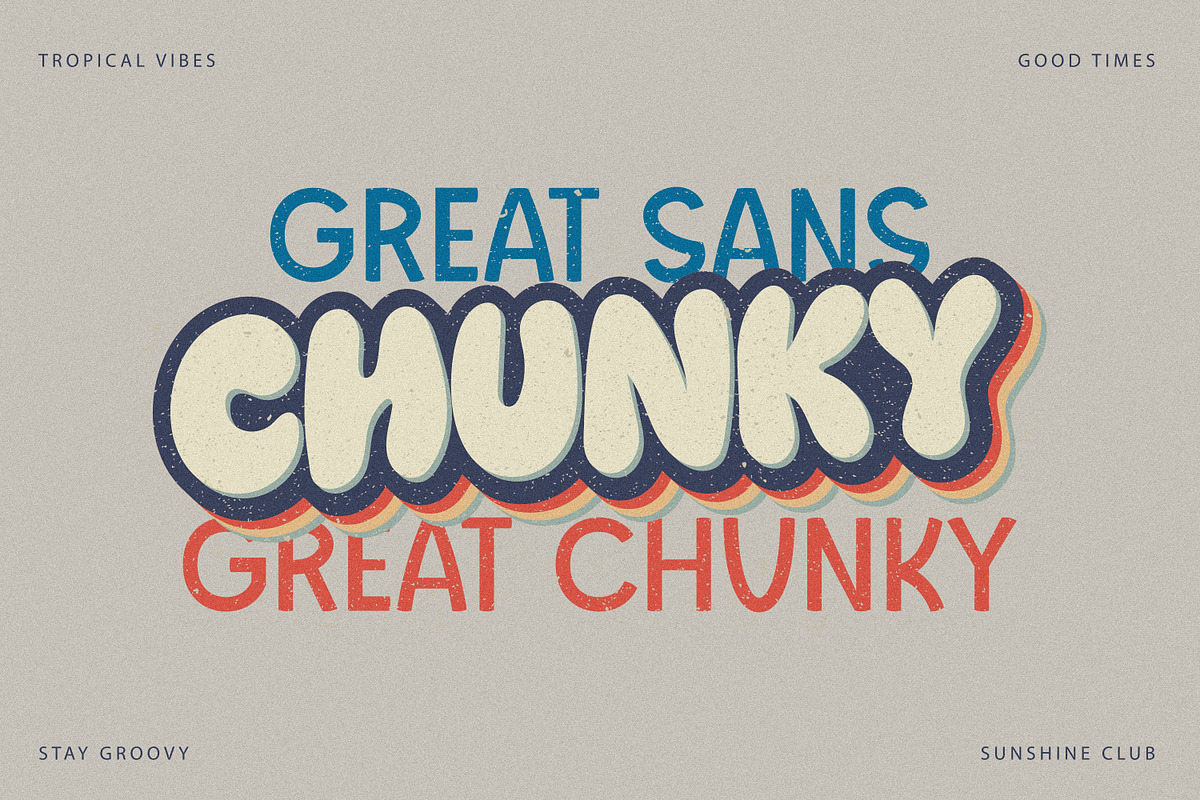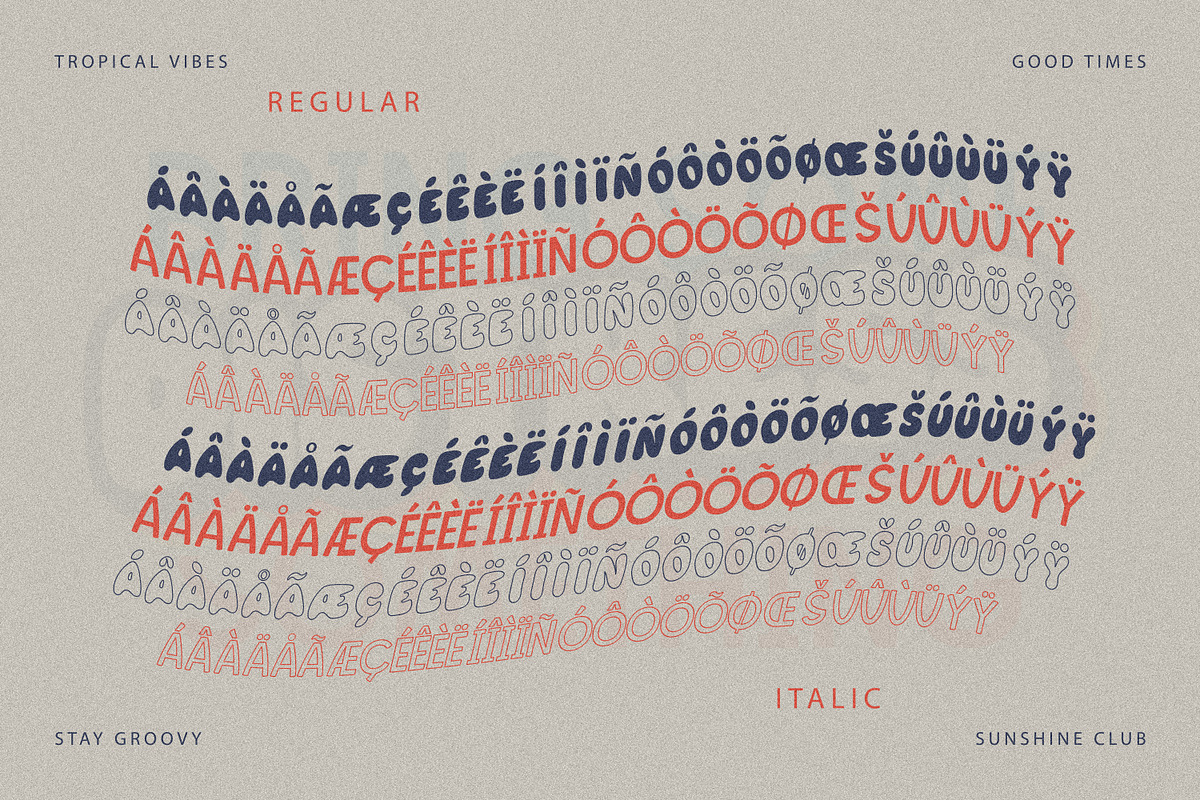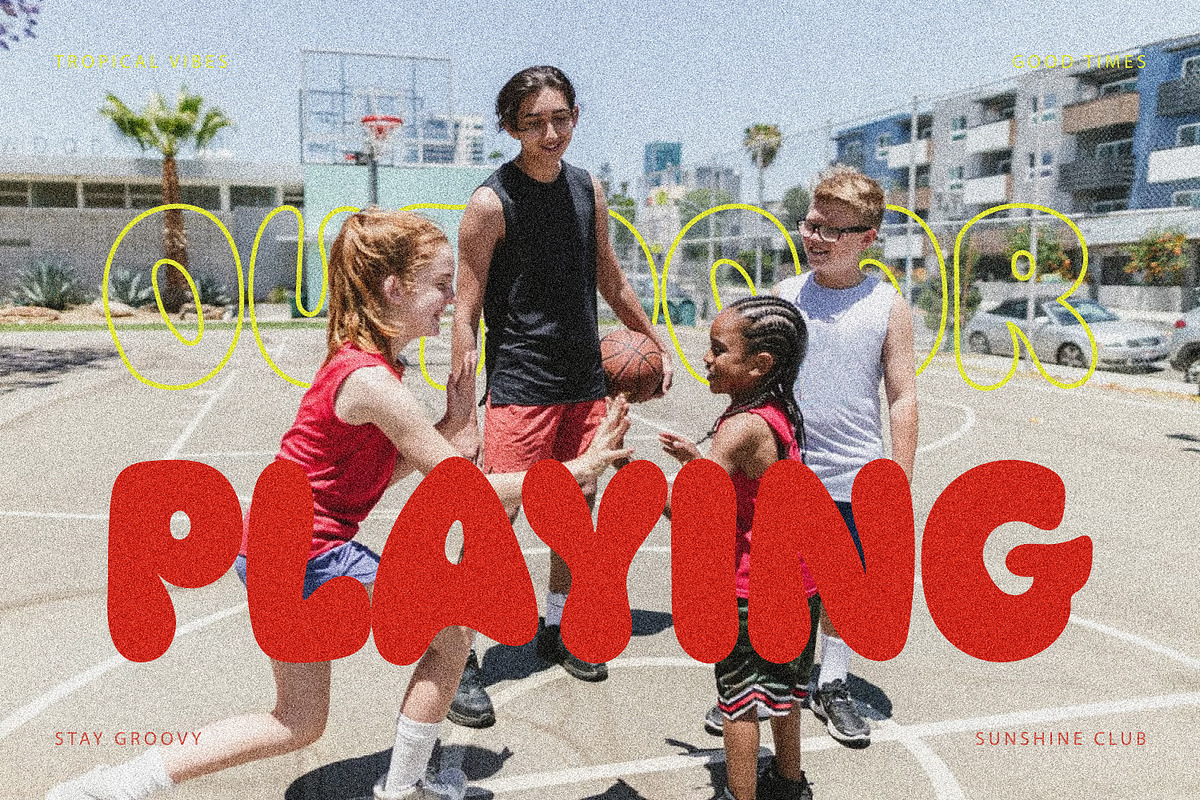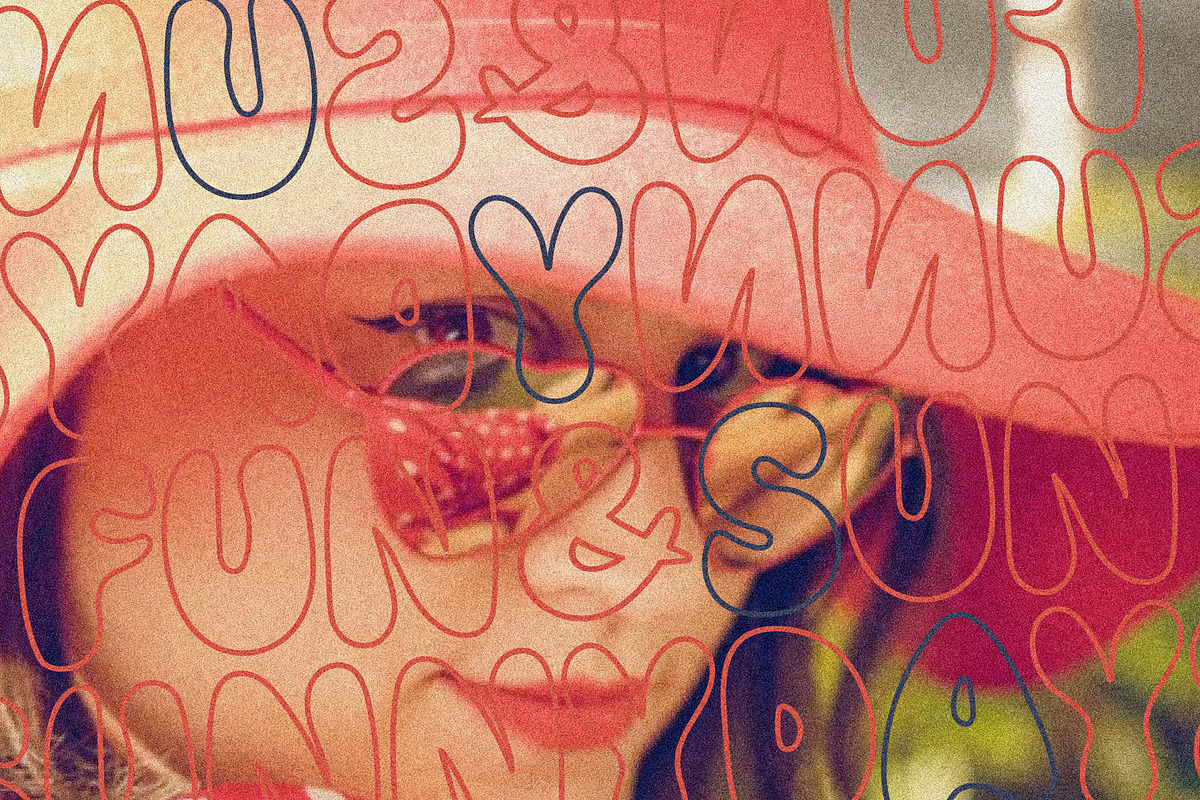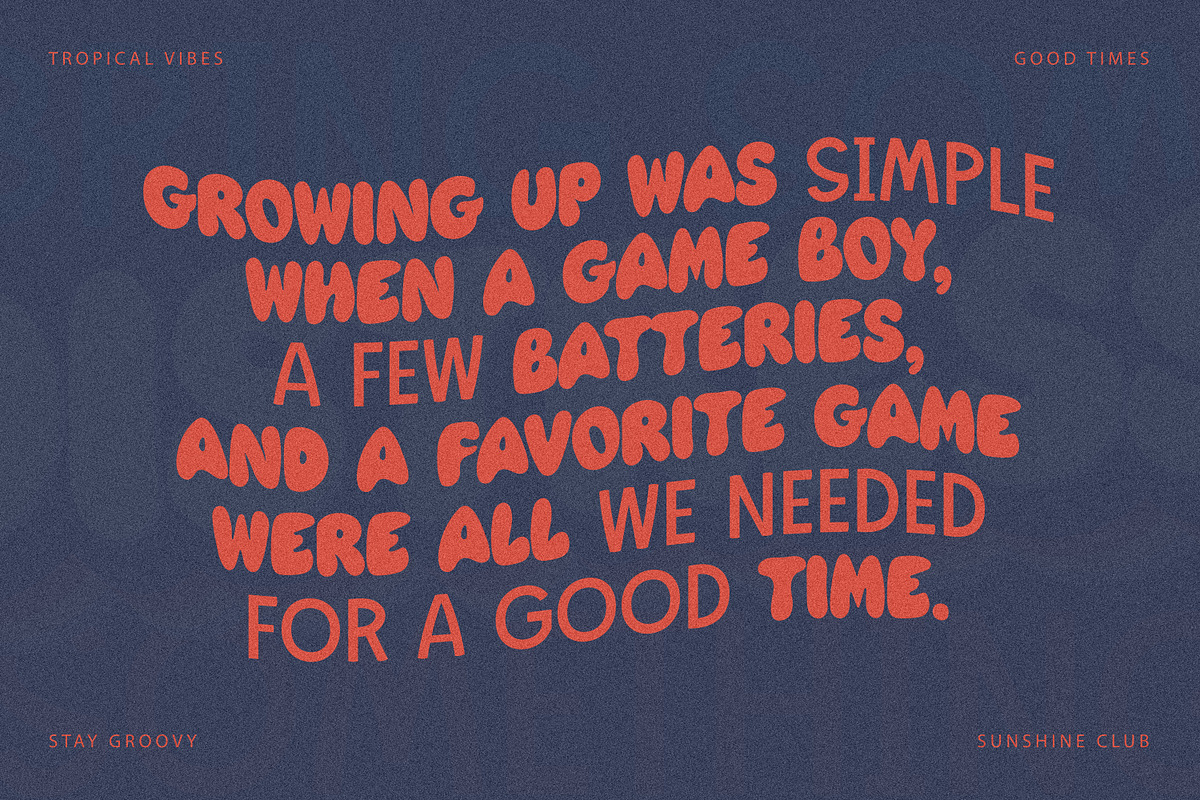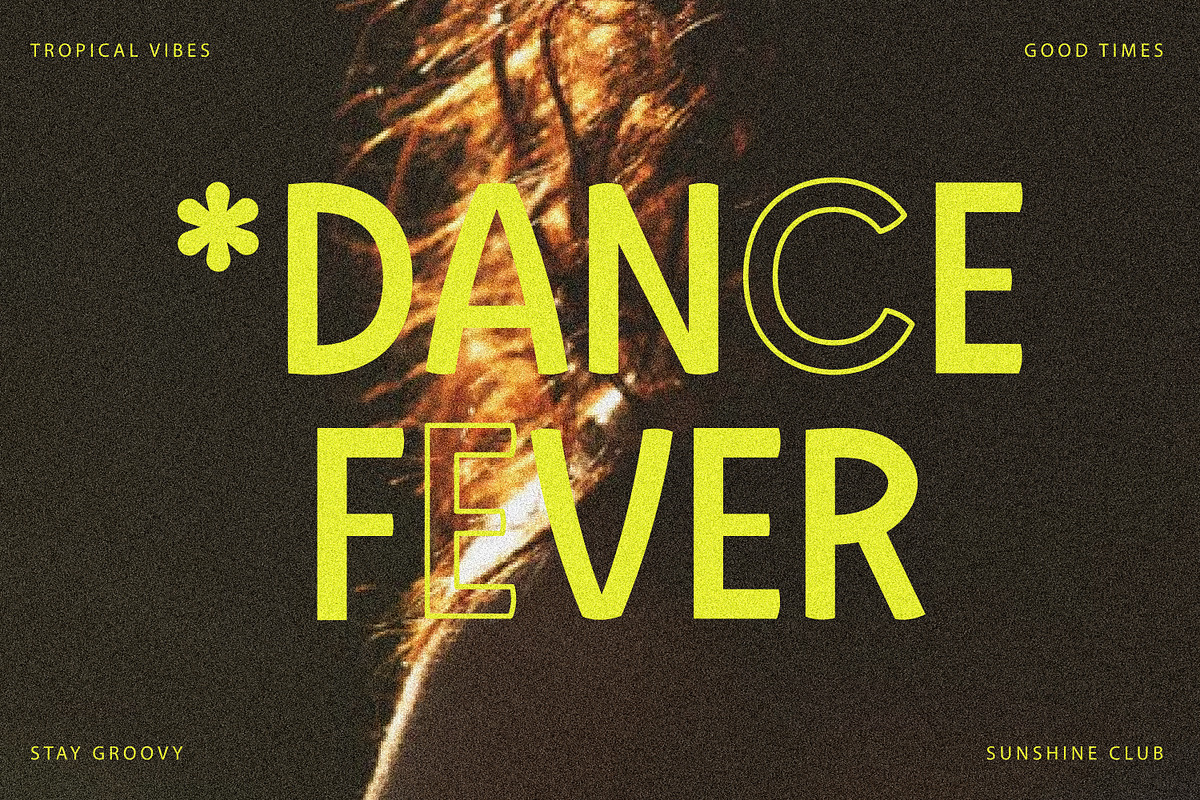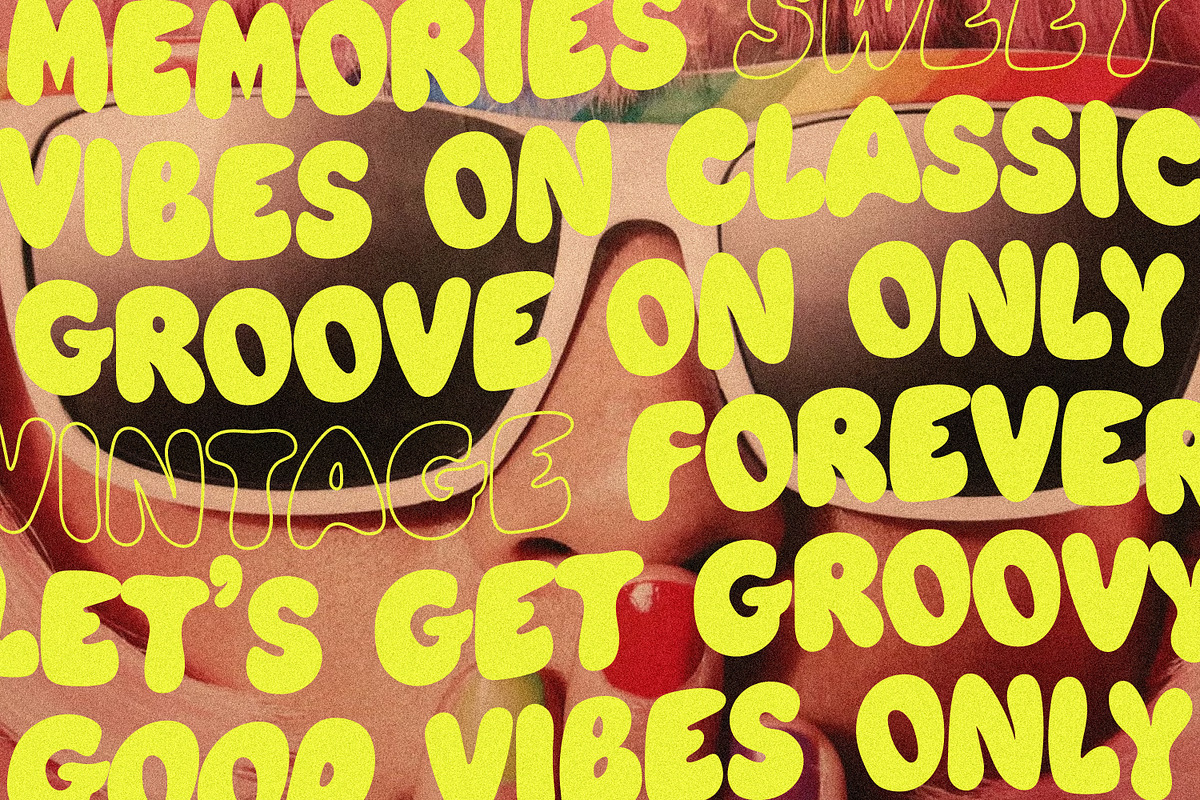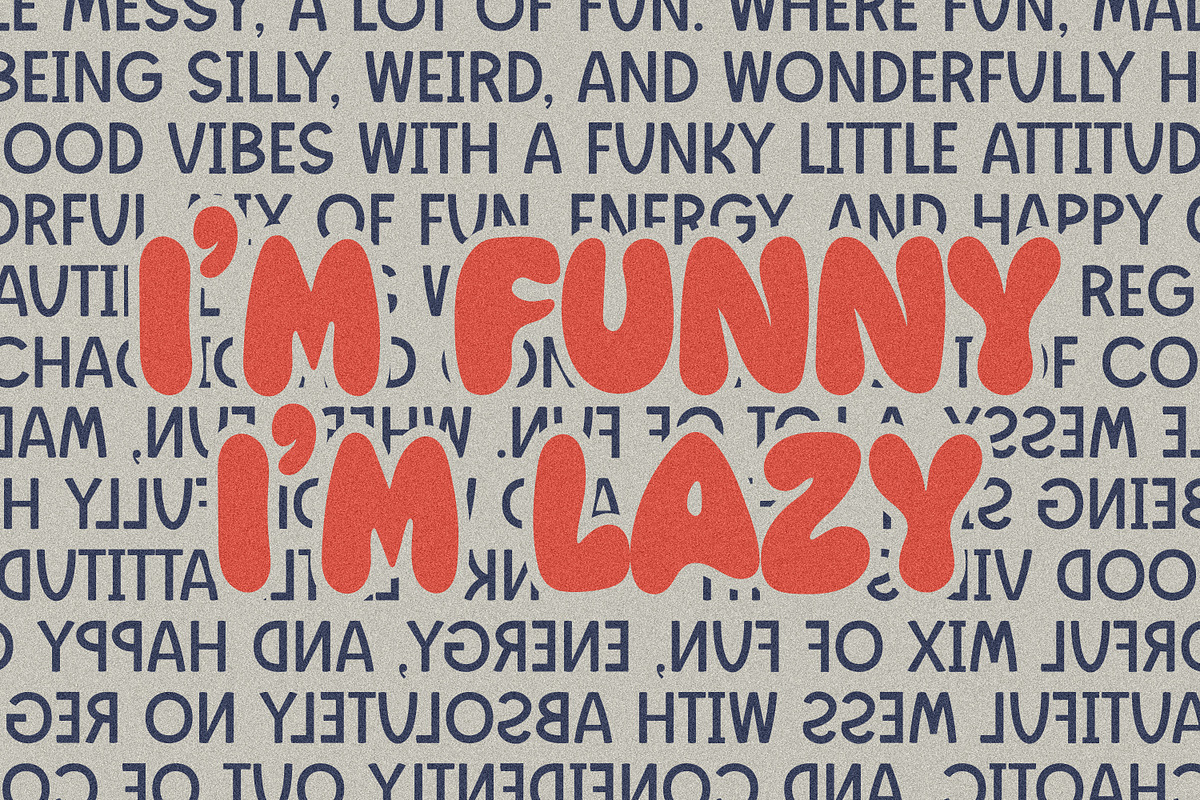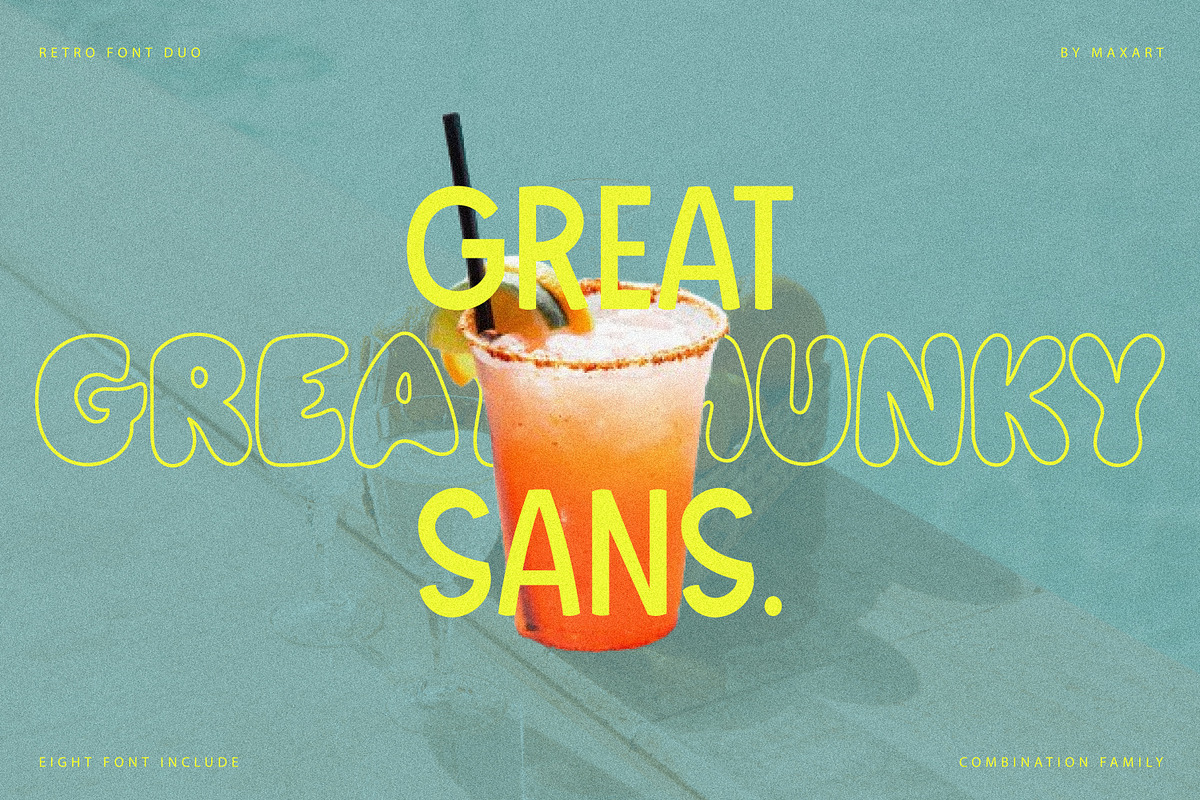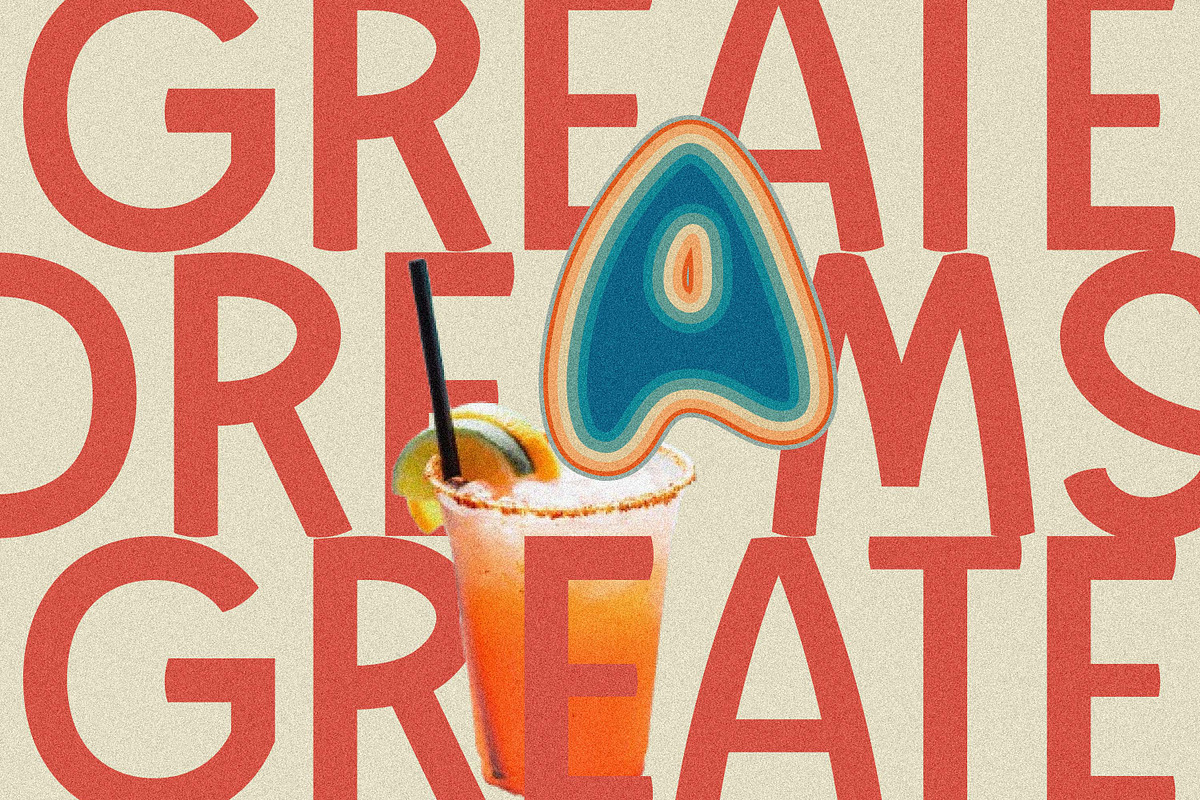
Great Chunky Sans - Y2k Funny Retro
Great chunky sans is a fun and groovy display font that blends playful retro character with a clean sans serif style. With its unique shapes, smooth forms, and eye-catching details, it brings a stylish and energetic feel to any design.
The family includes 8 fonts, featuring regular, italic, and outline styles that give you plenty of creative options for building unique typography. It also includes multilingual uppercase characters, making it a versatile choice for a wide range of design projects.
Perfect for cocktails, playful branding, posters, headlines, T-shirts, apparel, logos, social media graphics, stickers, packaging, and more. Whether you're creating a fun summer design, a retro-inspired project, or a bold modern composition, this font adds a fresh and distinctive personality to your work.
Groovy & playful display style
Clean sans serif influence
8 font styles included
Italic styles
Outline styles
Multilingual uppercase characters